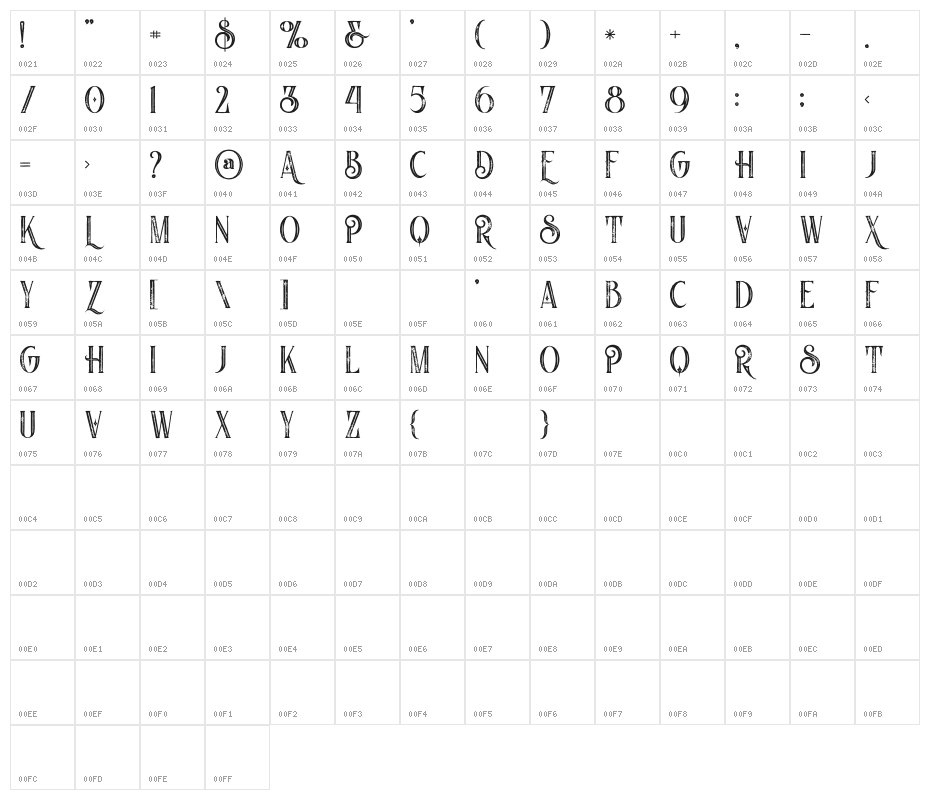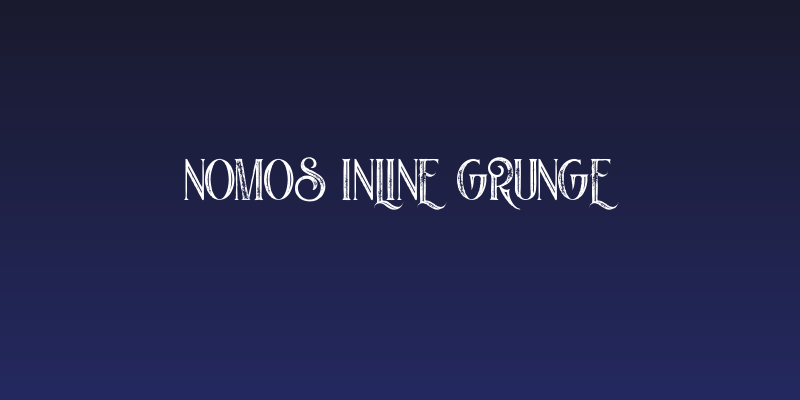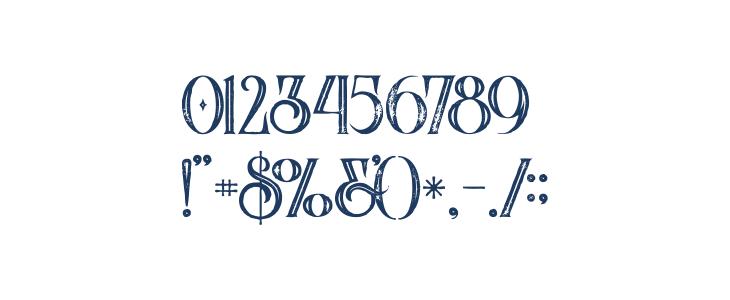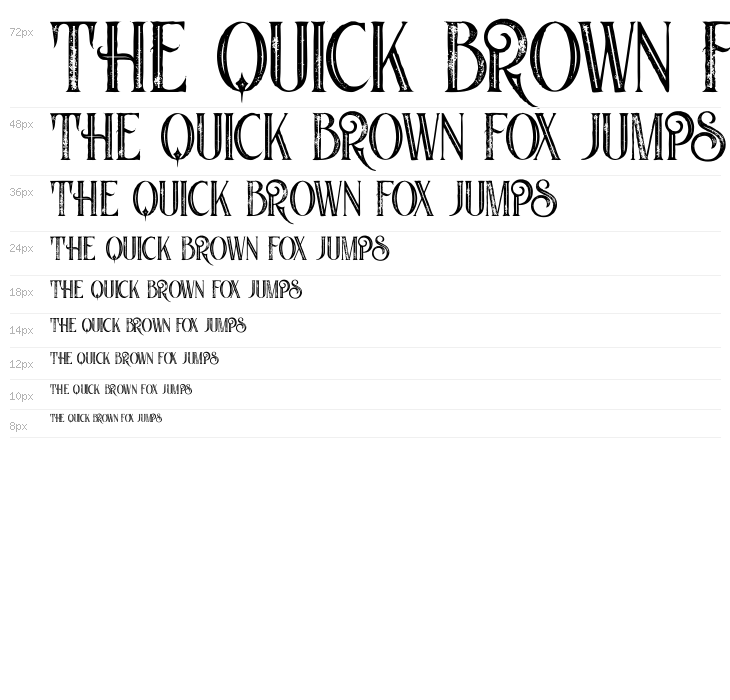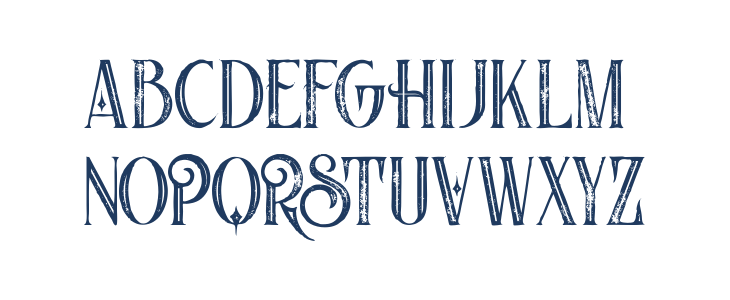
Nomos Inline Grunge Font
Nomos Inline Grunge Description
This font features a distinctive grunge style with an inline design that gives it a worn, textured appearance. The uppercase and lowercase letters are crafted with a decorative flair, incorporating sharp serifs and unique curves that add to its vintage appeal. The numbers and special characters maintain this aesthetic, ensuring consistency across all glyphs. The font's distressed look makes it ideal for projects that require a rugged, edgy feel, such as posters, album covers, or themed event invitations. Its artistic elements make it stand out, while the inline detail adds depth and dimension.
| Proposed Projects | Ideal for posters, album covers, themed events, and vintage-inspired designs. |